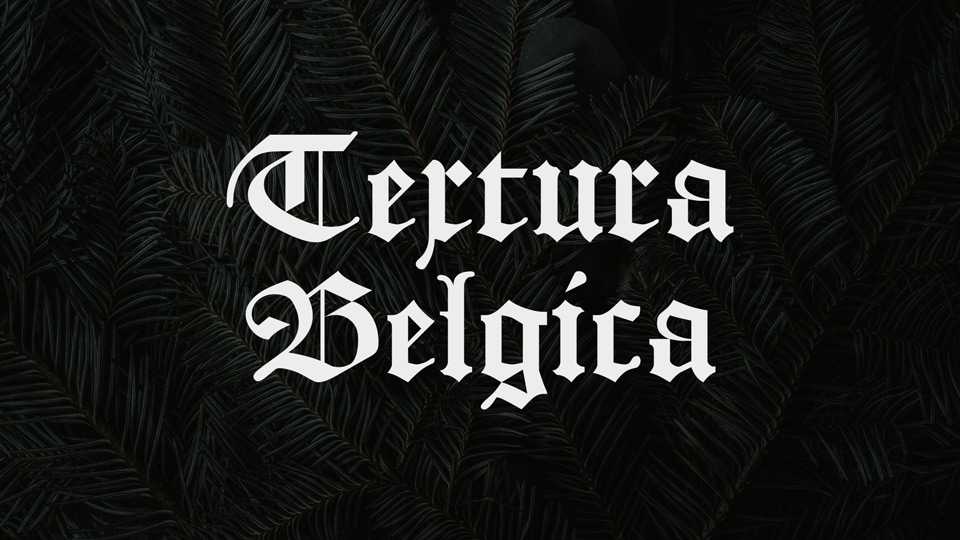
Download Textura Belgica font, a true to tradition digitalization of the blackletter type as it was used from the 16th into the 20th century in the Dutch language area.
Designer: Jozef Herrebrugh